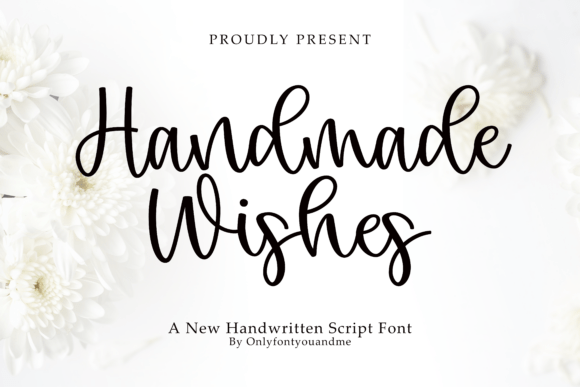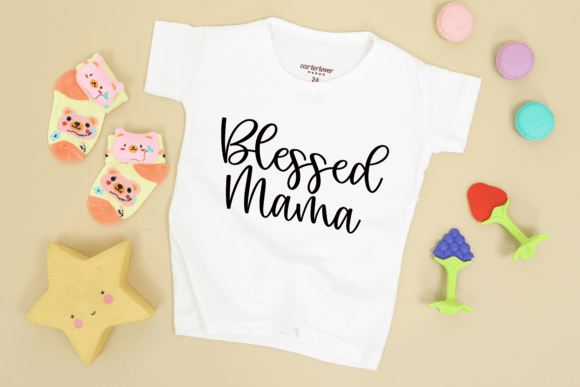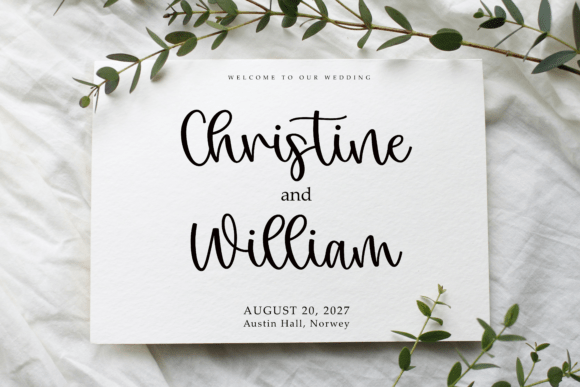
Handmade Wishes Font
About the Handmade Wishes Font
The wait is over! The incredible Handmade Wishes Font is now available for your design toolkit. The font “Handmade Wishes” is a modern handwritten script font characterized by its elegant yet casual style, featuring smooth, connected strokes that mimic natural cursive handwriting. It has a friendly, organic flow with rounded letterforms, high contrast in stroke thickness, and long ascenders and descenders that add grace and legibility. The overall look is charming and personal, making it ideal for use in wedding invitations, greeting cards, branding for lifestyle or feminine products, social media posts, and handmade product packaging.
Handmade Wishes Font Usage Examples
Handmade Wishes Font Example